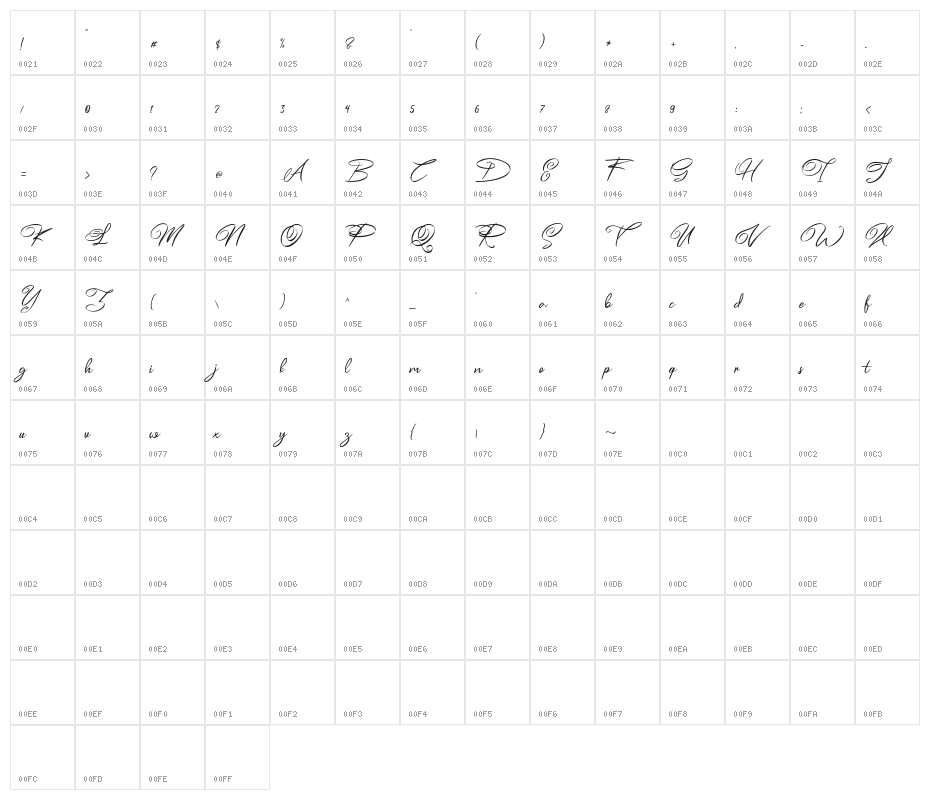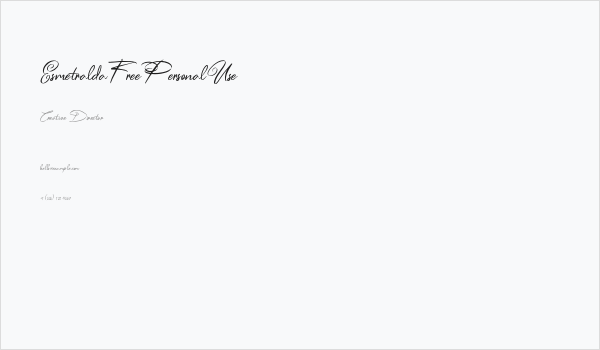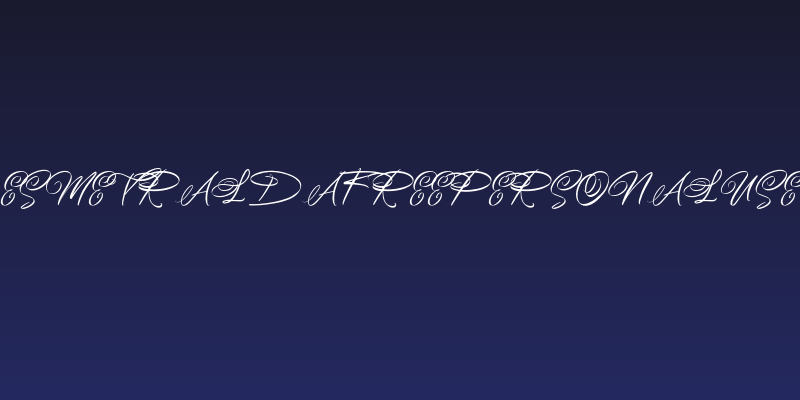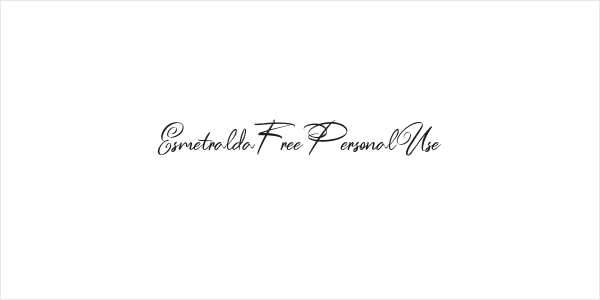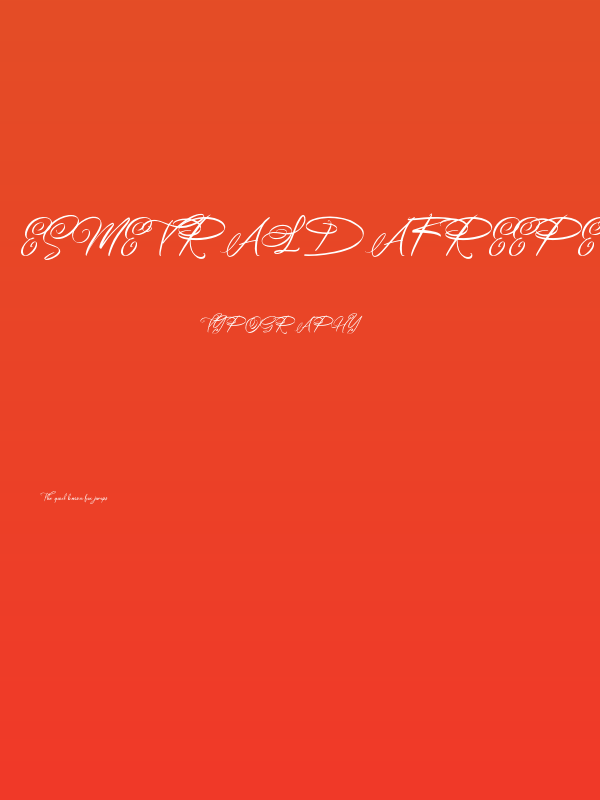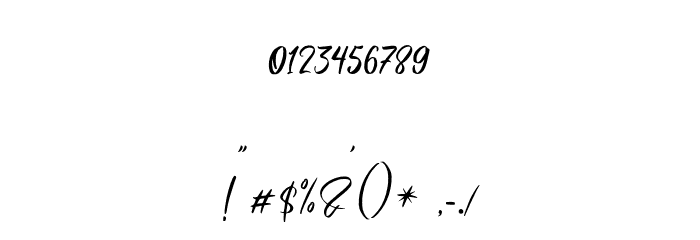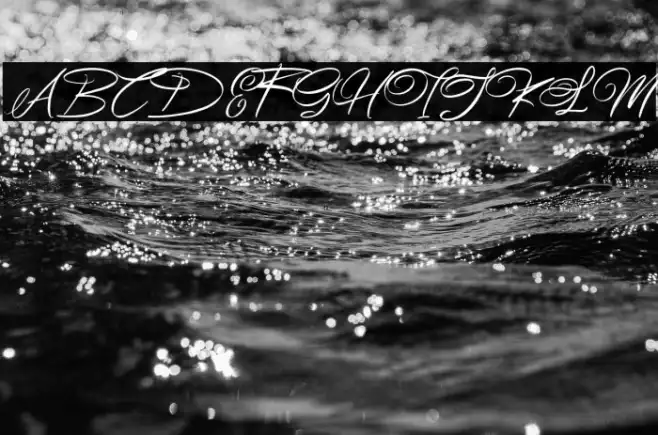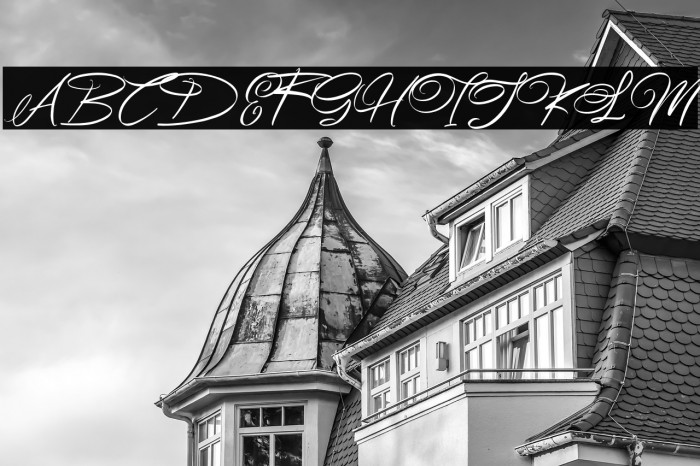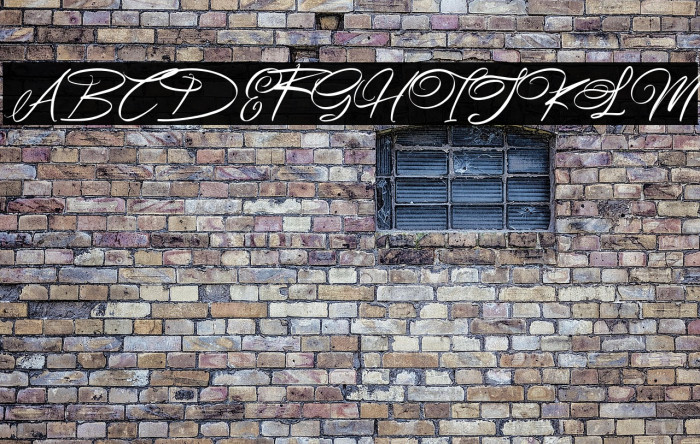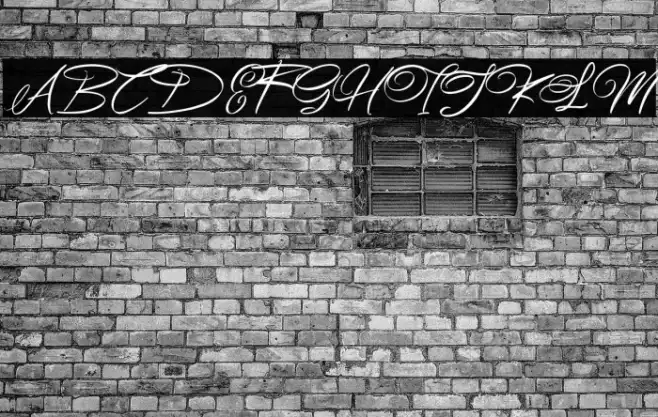
EsmetraldaFreePersonalUse Font
EsmetraldaFreePersonalUse Description
This elegant script font features a flowing, cursive style with intricate loops and flourishes. The uppercase letters are particularly ornate, with sweeping lines and decorative elements that give the font a sophisticated and artistic appearance. The lowercase letters maintain a consistent style, offering a smooth and connected look that enhances readability while retaining a sense of elegance. The numerals and special characters complement the overall design, ensuring a cohesive and harmonious appearance across all text. This font is ideal for projects that require a touch of class and refinement.
| Proposed Projects | Wedding invitations, luxury branding, greeting cards, elegant packaging, and decorative headlines. |